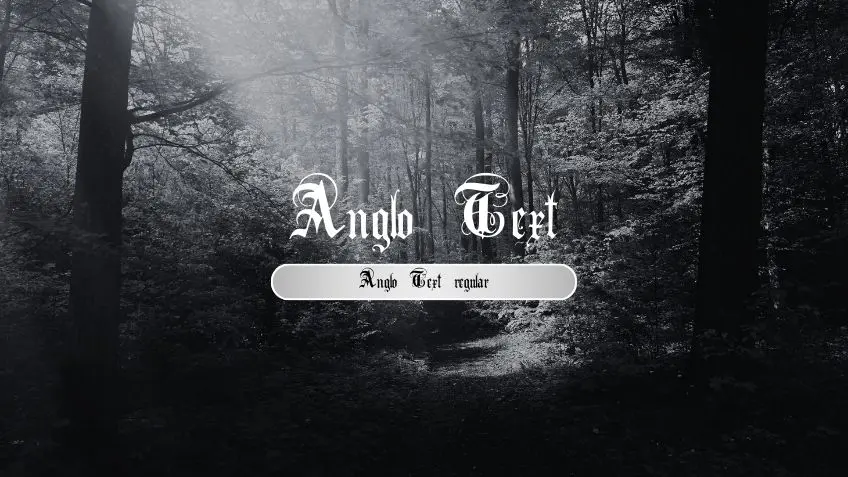
The font Anglo Text Regular, designed by Dieter Steffmann., falls under the Gothic category & Anglo Text font family. Its smooth, flowing letterforms make it a versatile choice for projects that require both elegance and readability. Anglo Text is particularly well-suited for Headlines and Titles, Logos and Branding, Certificates and Diplomas and Creative and decorative design. With its balance of simplicity and decorative appeal, this font brings a polished touch to both personal and professional designs.